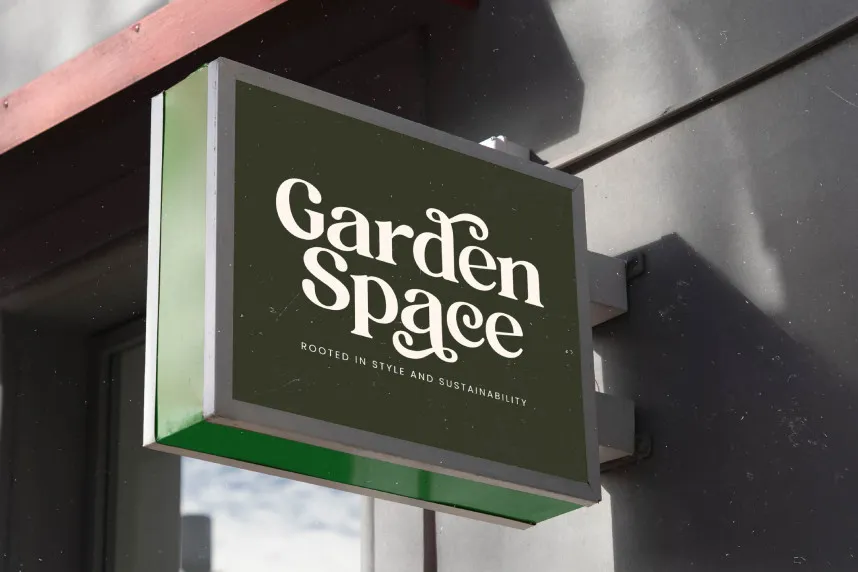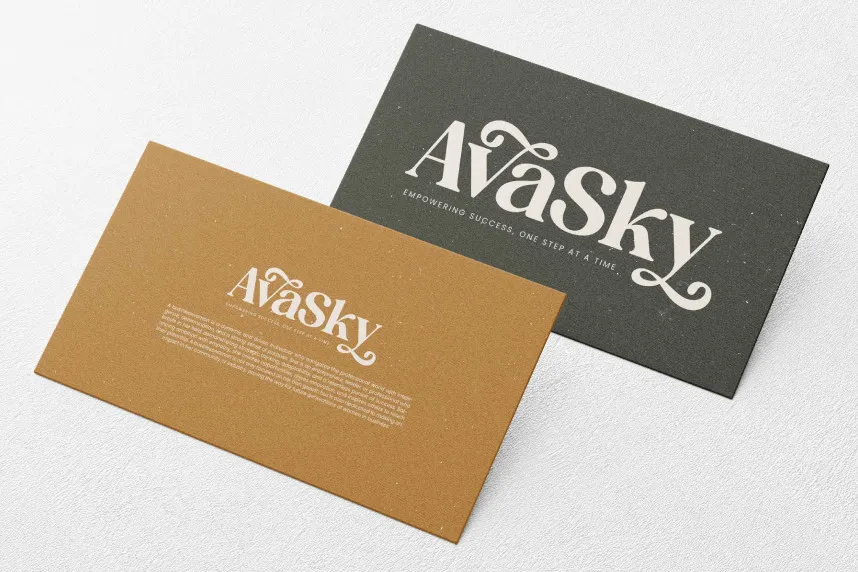
Brighto Wander Font is a creative and adventurous typeface full of life and movement. It has a playful energy that makes words feel expressive and bold.
The font mixes smooth curves with strong shapes, creating a perfect balance between creativity and clarity. It is ideal for travel brands, lifestyle blogs, and poster designs.
Brighto Wander Font gives every design a cheerful and inspiring touch. It helps capture attention while keeping a friendly tone.
The flowing letters make it easy to read, even when used in decorative layouts or large titles. It feels both modern and artistic.
Brighto Wander Font Family
Designers love using it for branding, packaging, and social media posts that aim to stand out. It gives text a warm and inviting character.
| Name | Brighto Wander |
| Type | Playful Display Script |
This font brings creativity to life, making it a great choice for anyone who wants their design to tell a fun and inspiring story.